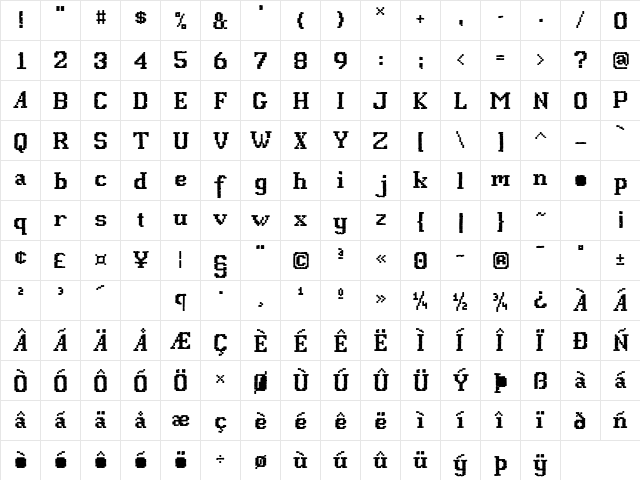
P22FolkArt Stitch
Design Context for P22FolkArt Typeface
P22FolkArt takes a measured approach to typography — its balanced proportions and neutral character make it a reliable workhorse for both digital and print work.
Pro Tip: Use P22FolkArt in both headline and body roles to test its range before committing to a single application.